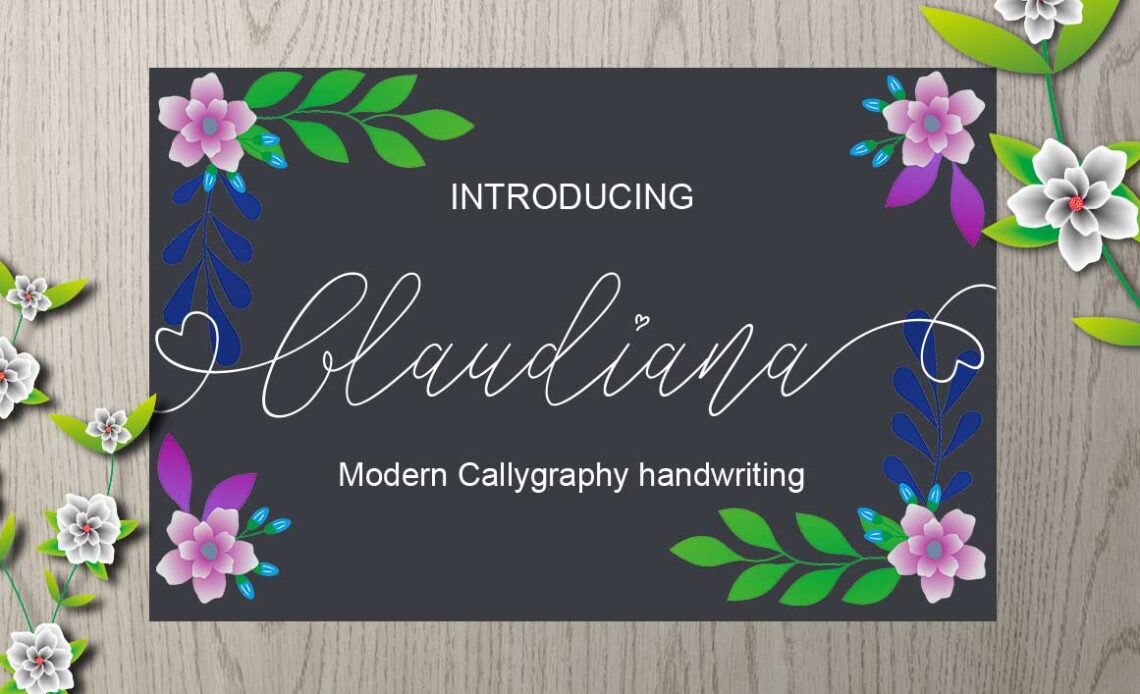
Behold, the Glaudiana Script Font: A Typographical Tapestry that Dances on the Page!
Introducing Glaudiana, an exquisite script font crafted to ignite your creativity and leave an indelible mark on every design it graces. Step into a world of effortless elegance and undeniable charm, where letters intertwine with seamless grace, creating a visual symphony that captivates the senses.
Glaudiana's monoline strokes possess an alluring simplicity, exuding both casual flair and a touch of sophistication. This remarkable script seamlessly blends the organic flow of handwriting with the precision of digital design, resulting in a font that is both highly legible and visually captivating.
Whether you're a seasoned designer or simply seeking to add a touch of personality to your projects, Glaudiana is the perfect choice. Its versatility knows no bounds, effortlessly adapting to a myriad of creative endeavors. From enchanting wedding invitations that evoke timeless romance to eye-catching social media posts that demand attention, Glaudiana transforms ordinary words into extraordinary works of art.
Immerse yourself in the allure of Glaudiana, where creativity flourishes and imagination takes flight. Let its graceful curves and enchanting lines guide you towards design masterpieces that captivate hearts and leave a lasting impression. Embrace the beauty of Glaudiana today and elevate your designs to new heights of brilliance!